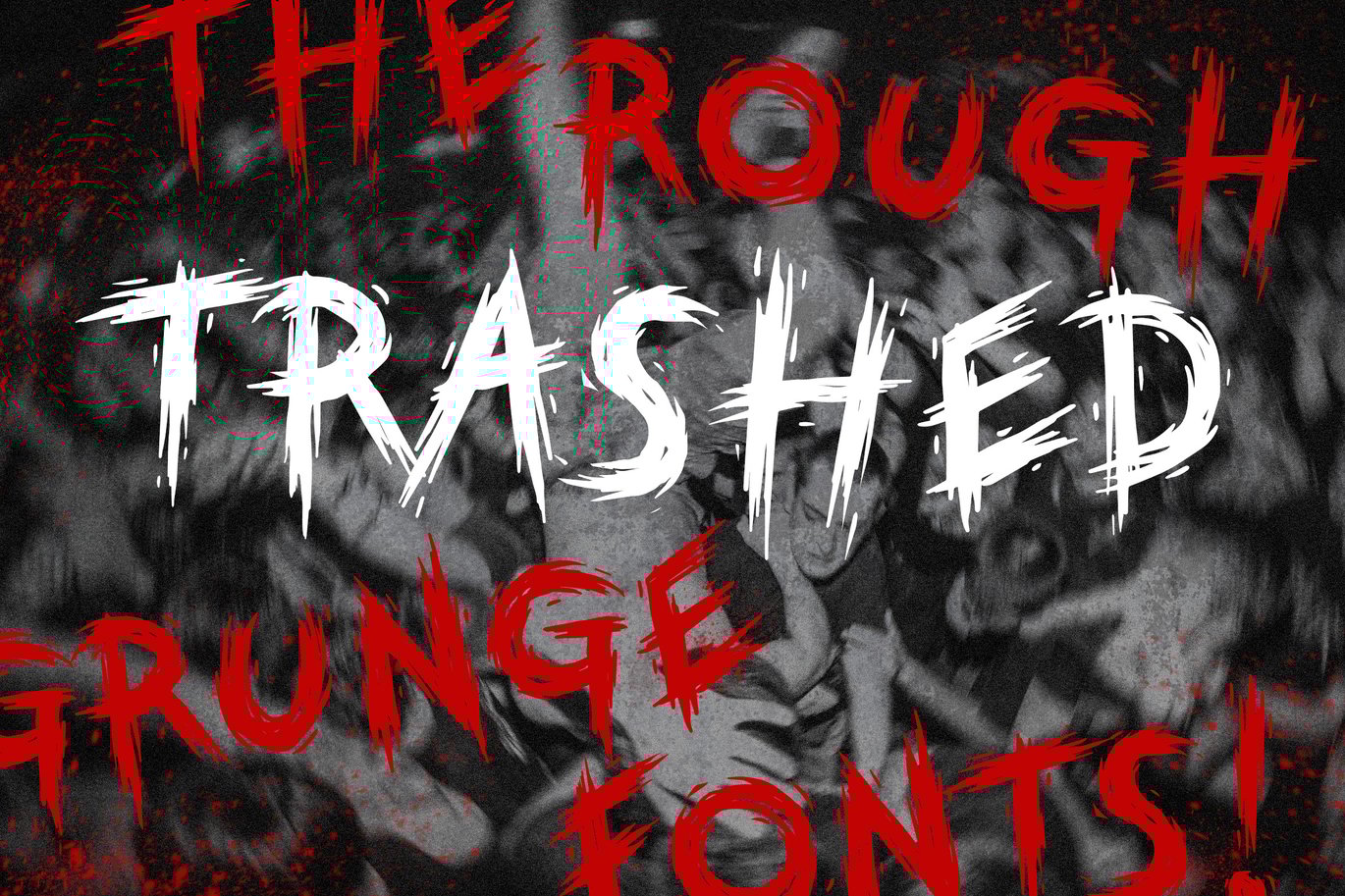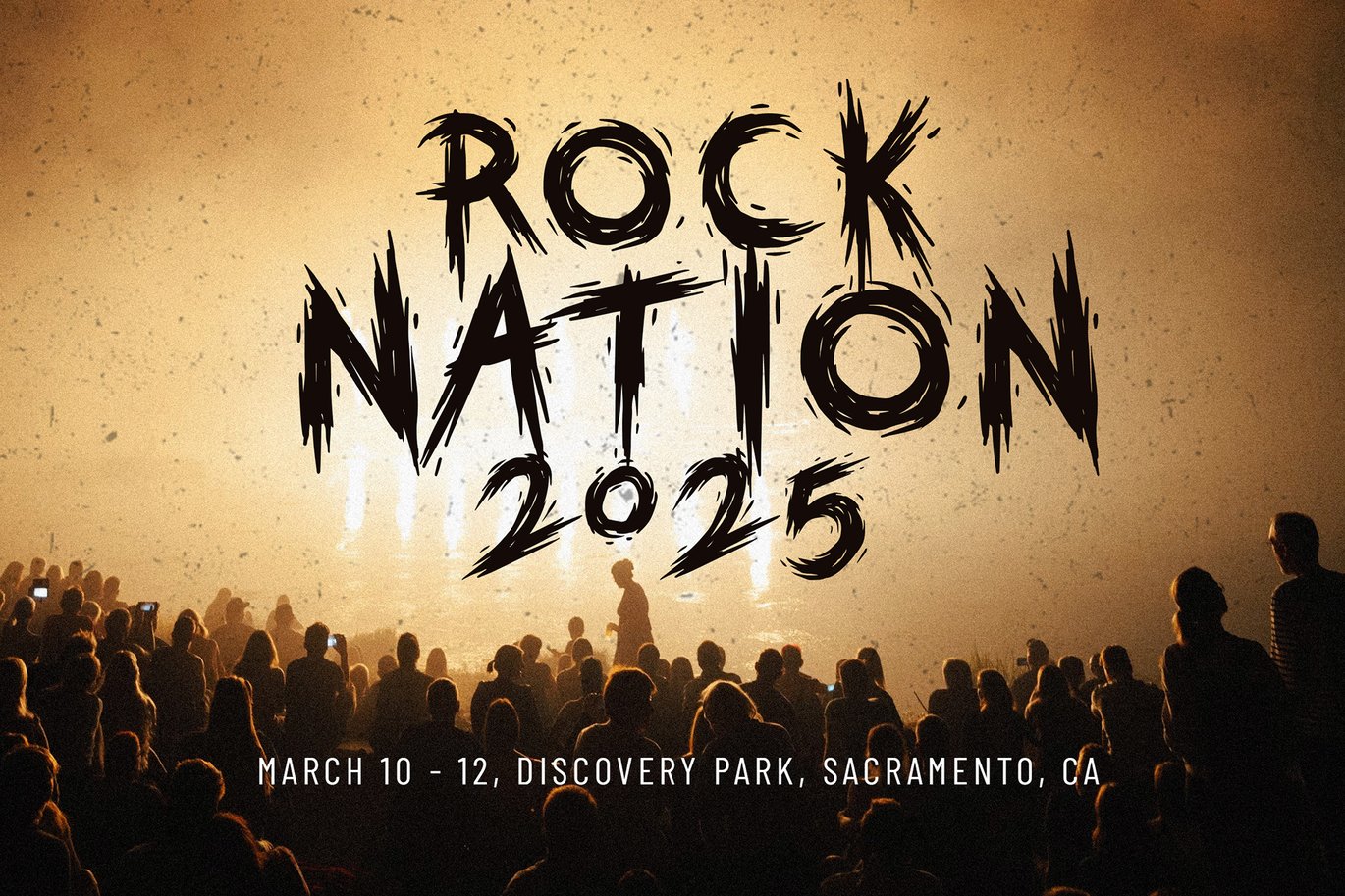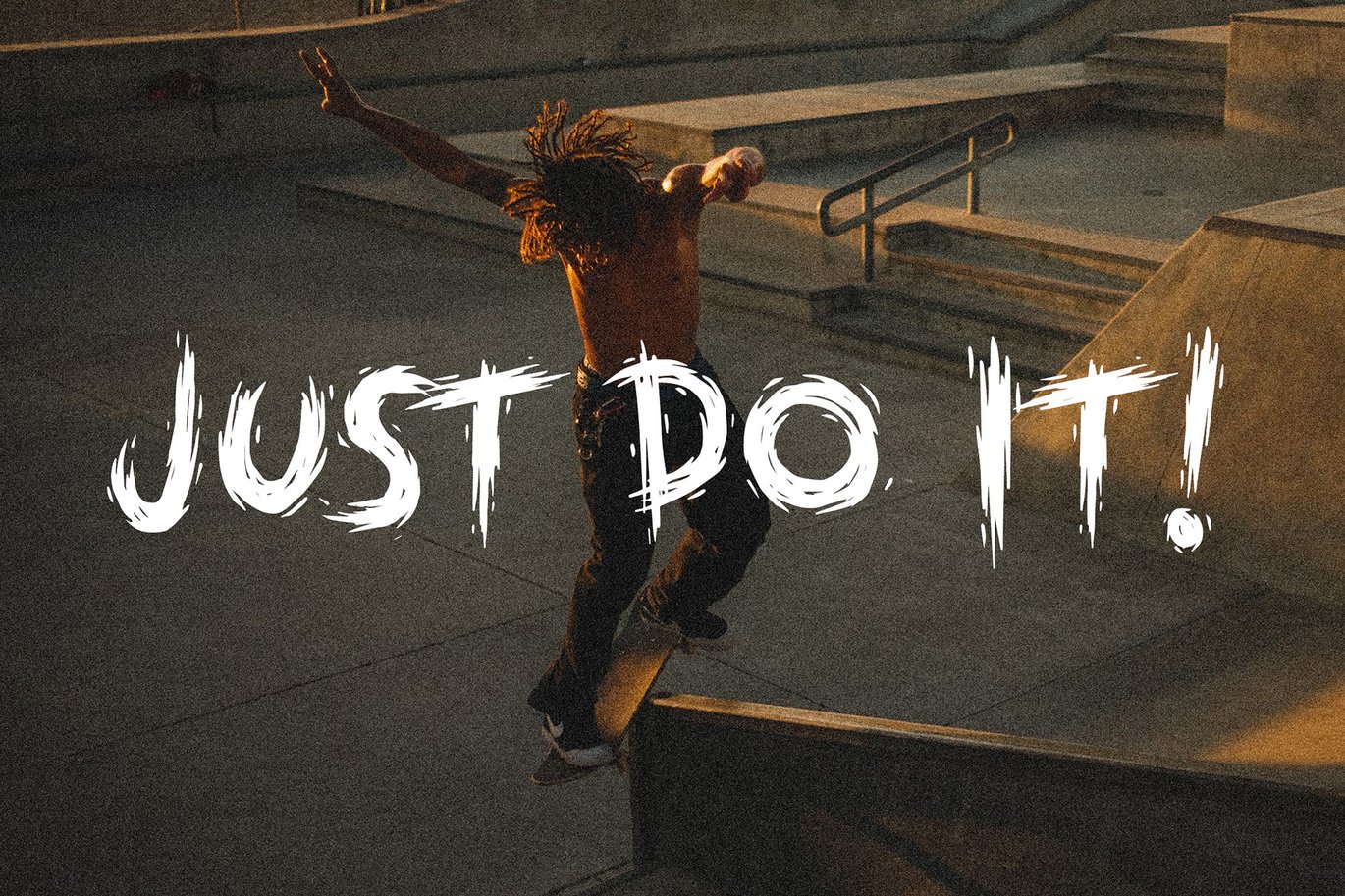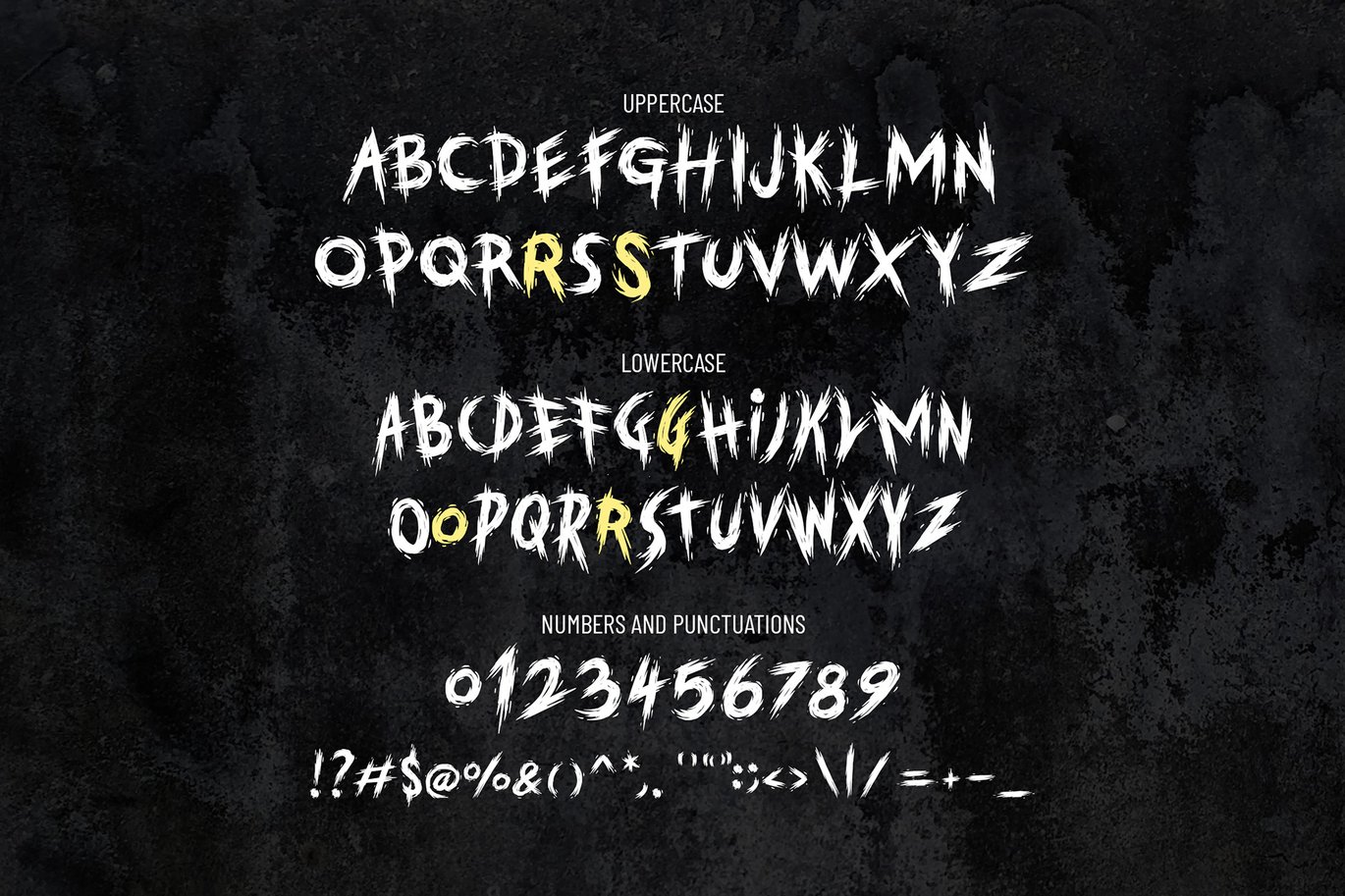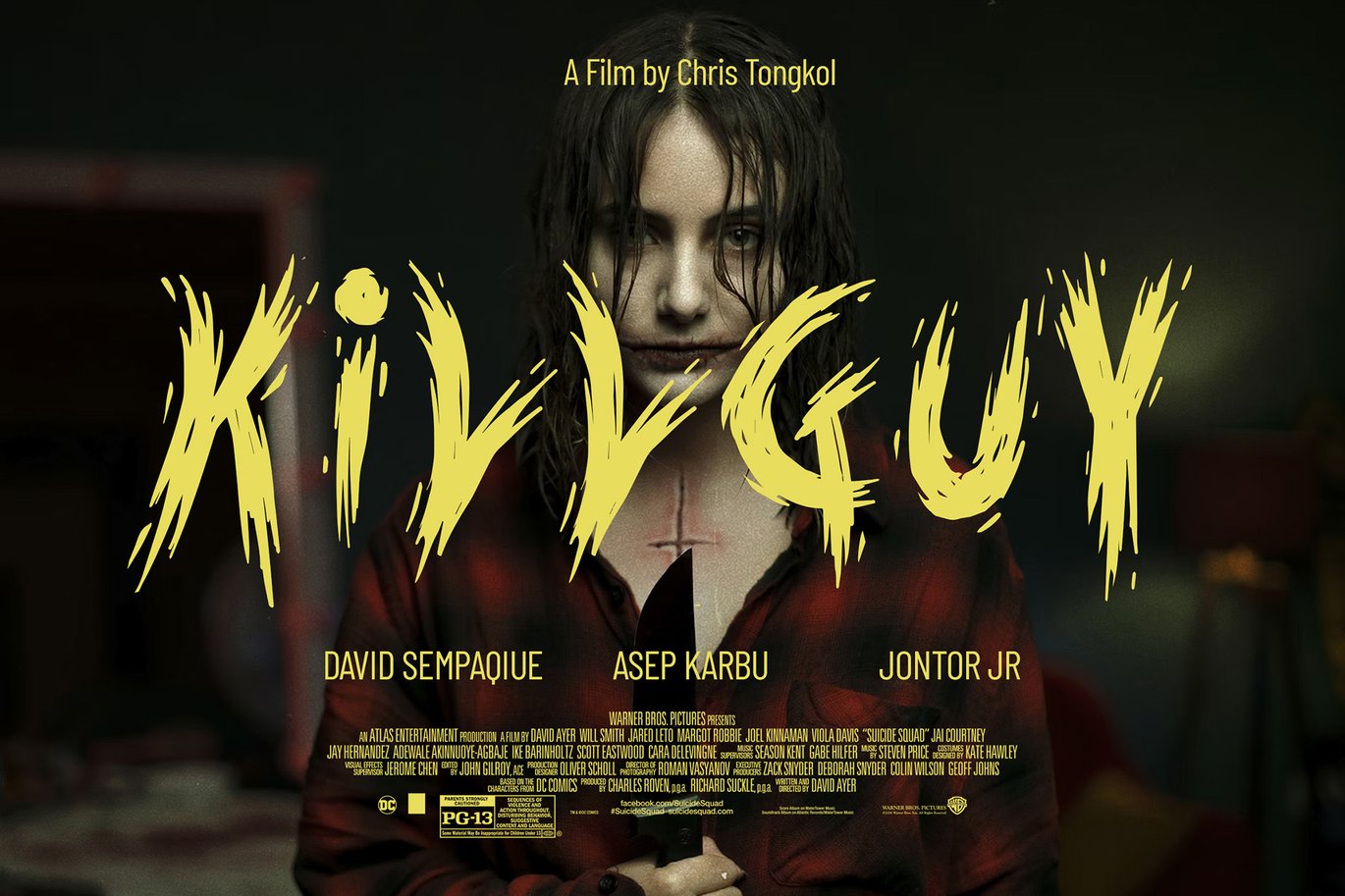
Grunge Fonts Trashed
Crafted carefully and more detail than before, you can see the detail of the curve and the shattered effect. Perfect for rough grunge design, hard metal music or a thriller movie.
You’ll get uppercase and lowercase versions, and there’s also some alternatives. The lowercase is also caps but its more condensed, makes it great combination if you want to combine the uppercase and lowercase!